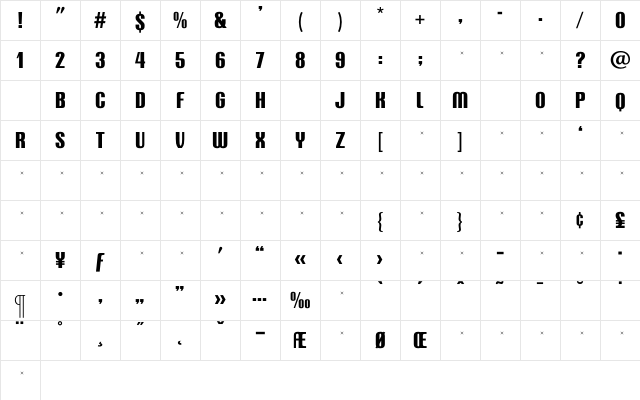
QuestBold Regular
Design Context for QuestBold
QuestBold is a composed and adaptable typeface that performs quietly and consistently across a wide range of design contexts. Its bold stroke weight gives it real presence on the page.